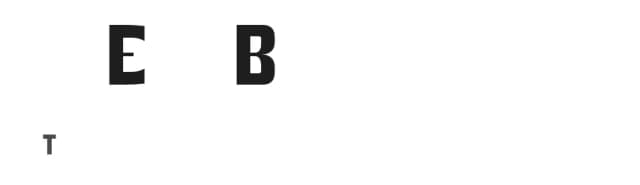
About Fernstad Font
Fernstad Specifications
| Font Family | Fernstad |
| Full Name | Fernstad-Regular |
| Glyph Count | 178 glyphs |
| PostScript Name | Fernstad-Regular |
| Designer | Muhammad Faiz |
Fernstad supports 189 languages.
Fernstad Font is a versatile sans-serif font that works for both headings and body text. Pair it with a contrasting serif or slab serif font to add visual interest and a clear distinction between titles and body copy.
Fernstad Font
by Eztudio